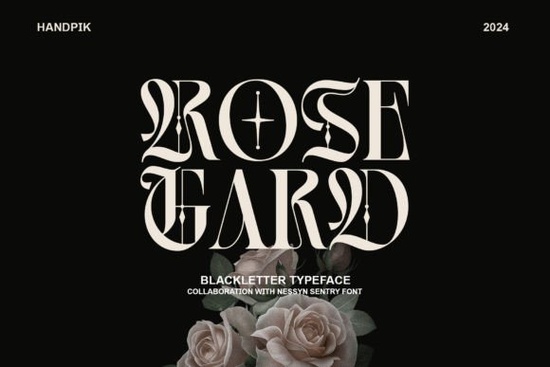
If you're working on a design that needs a bold, gothic punch think vintage posters, edgy apparel, or dramatic branding the Rose Gard Font might be exactly what you’re looking for. It’s a thick, blackletter-style typeface with strong character lines and ornate detailing that stands out without feeling cluttered. What makes it especially useful is that it’s PUA encoded, so all the extra glyphs, swashes, and alternate characters are easy to access through your design software’s glyph panel.
Blackletter fonts like Rose Gard carry centuries of typographic history, originally inspired by medieval manuscripts and later adopted by everything from newspaper mastheads to heavy metal album covers. Today, they’re popular among designers who want to add weight, tradition, or rebellion to their visuals all depending on how you style them.
What kinds of projects work best with Rose Gard?
This font shines in contexts where presence matters more than subtlety:
- Print-on-demand items like T-shirts, mugs, or posters where bold typography drives the message
- Branding for niche businesses think tattoo parlors, craft breweries, or boutique apothecaries
- Event invitations for weddings, galas, or themed parties that lean into vintage or gothic aesthetics
- Craft projects such as vinyl cutting, embroidery digitizing, or hand-lettered signs
Because of its high contrast and dense letterforms, Rose Gard works best at larger sizes. Avoid using it for body text or small labels it’s meant to be seen, not skimmed.
How does it compare to other blackletter fonts?
Not all blackletter fonts are created equal. Some lean more toward calligraphic elegance, while others embrace urban grit. If you like the boldness of Rose Gard but want alternatives with different moods, consider exploring similar options:
Each of these brings its own personality to the table, so your choice depends on whether your project calls for romance, rebellion, or restraint.
Why does PUA encoding matter?
You might see “PUA encoded” listed in font descriptions and wonder what it means. PUA stands for Private Use Area a Unicode range reserved for custom glyphs that aren’t part of standard character sets. In practical terms, this means fonts like Rose Gard pack in extras (swashes, ligatures, flourishes) that you can actually use without switching between multiple font files.
This saves time and gives you far more creative control than relying solely on basic uppercase and lowercase letters.
Tips for pairing Rose Gard with other fonts
Because Rose Gard is so visually dominant, pair it with simple, neutral typefaces to avoid competition. Good companions include:
- Sans-serif fonts like Helvetica, Montserrat, or Lato for clean contrast
- Light serif fonts (e.g., EB Garamond or Playfair Display Italic) for a classic yet balanced layout
Avoid pairing it with other decorative or script fonts unless you’re going for an intentionally chaotic or maximalist look, which works in very specific contexts (like concert flyers or fantasy book covers).
Also, give it breathing room. Use generous line spacing and ample margins so the intricate details don’t get lost in visual noise.
Quick checklist before using Rose Gard in your next project:
With its commanding presence and easy-to-access extras, Rose Gard is a solid pick for creators who want gothic drama without technical hassle.